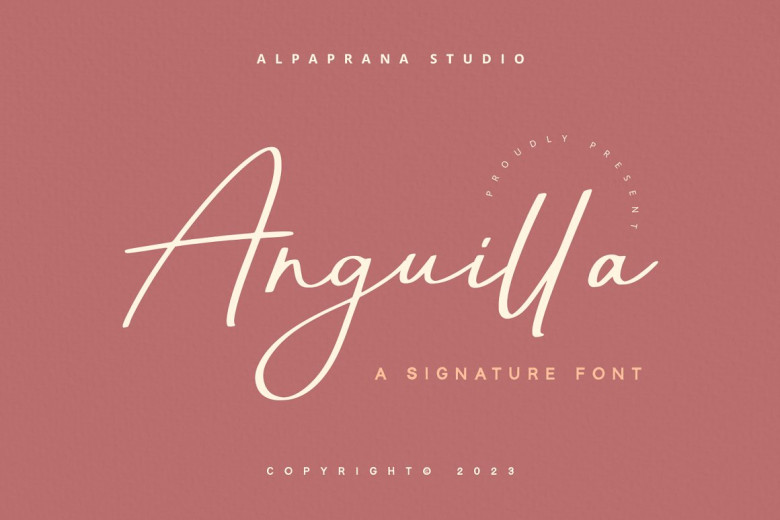
Anguilla Font
Anguilla features a natural yet modern aesthetic, making it suitable for branding, logo design, lettering and logotyping purposes as well as clothing, posters, magazine packaging and posters, shopping bags. T-shirts. book covers. photography.
Anguilla Signature Font